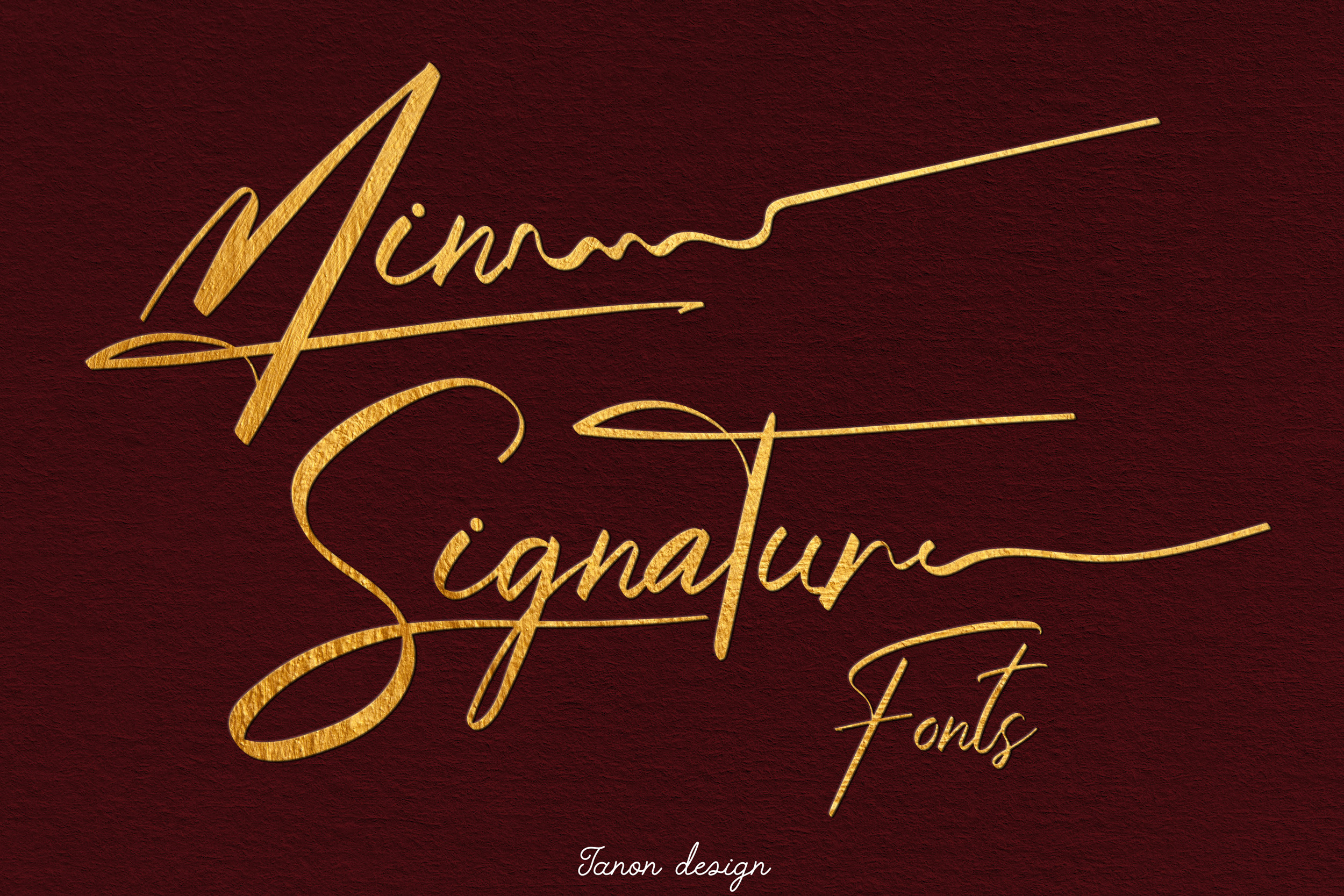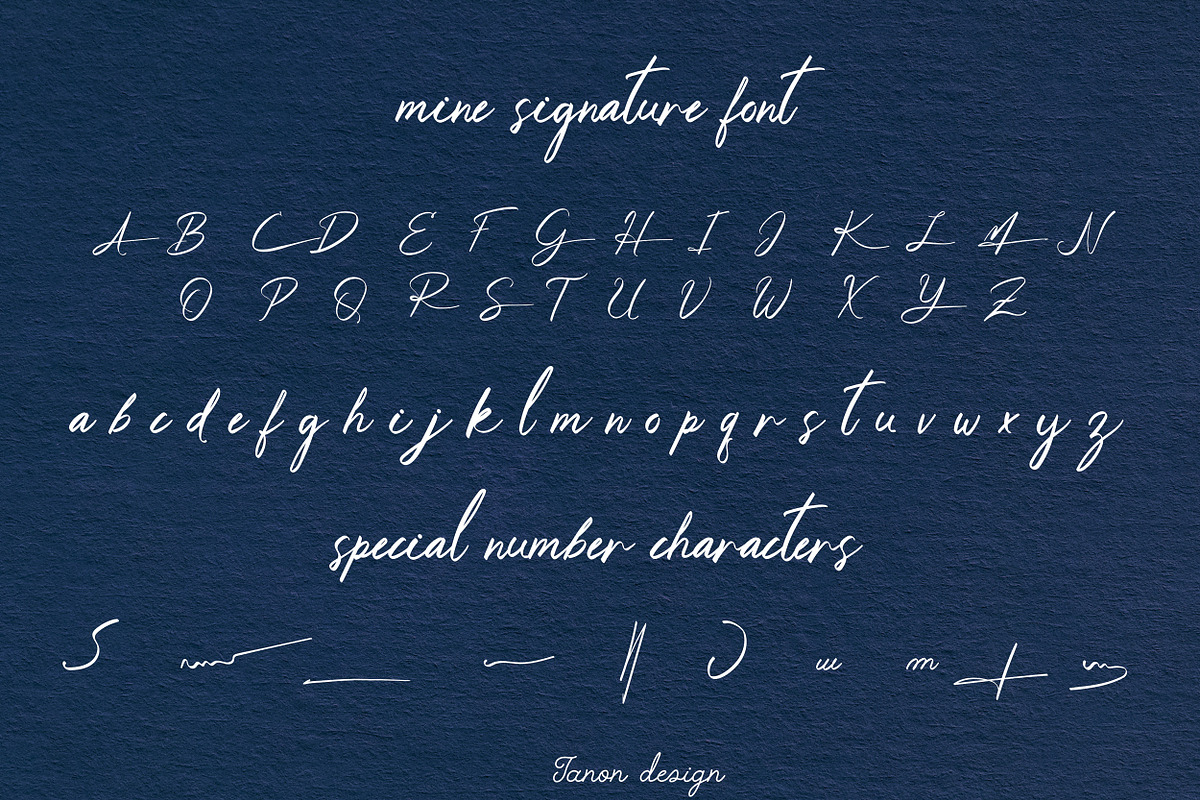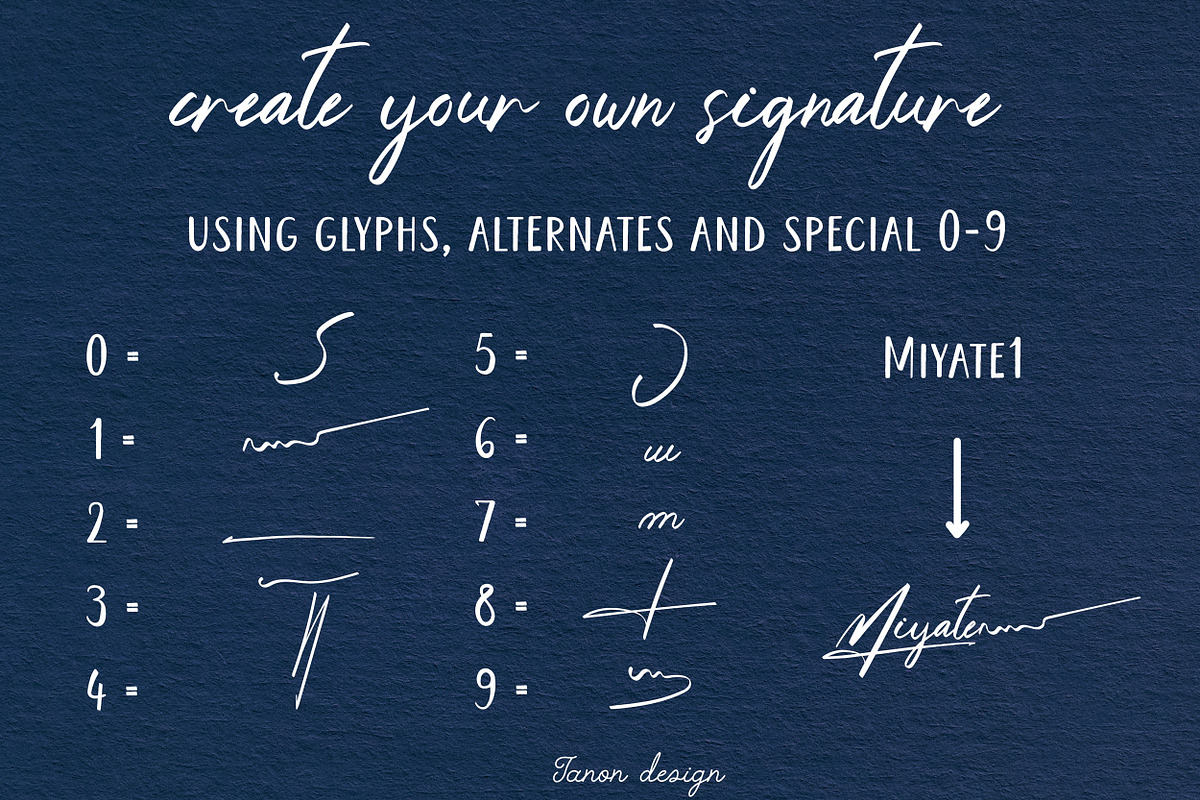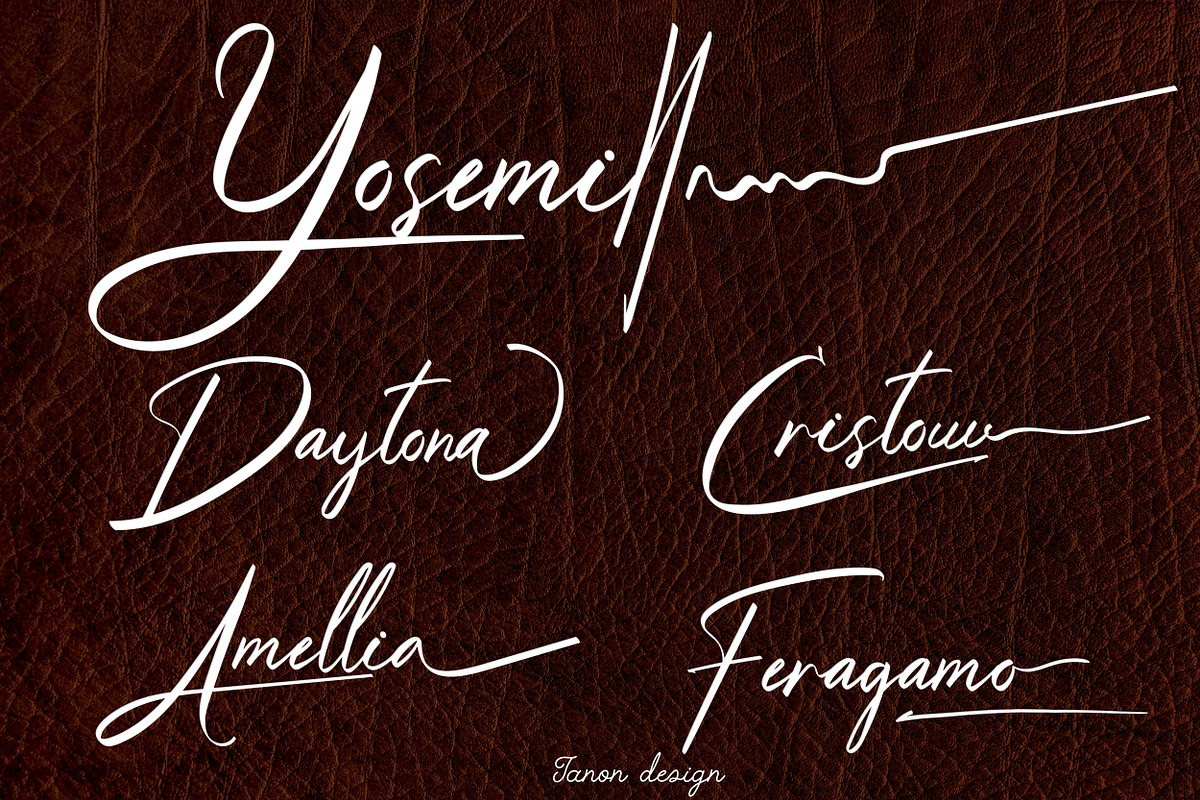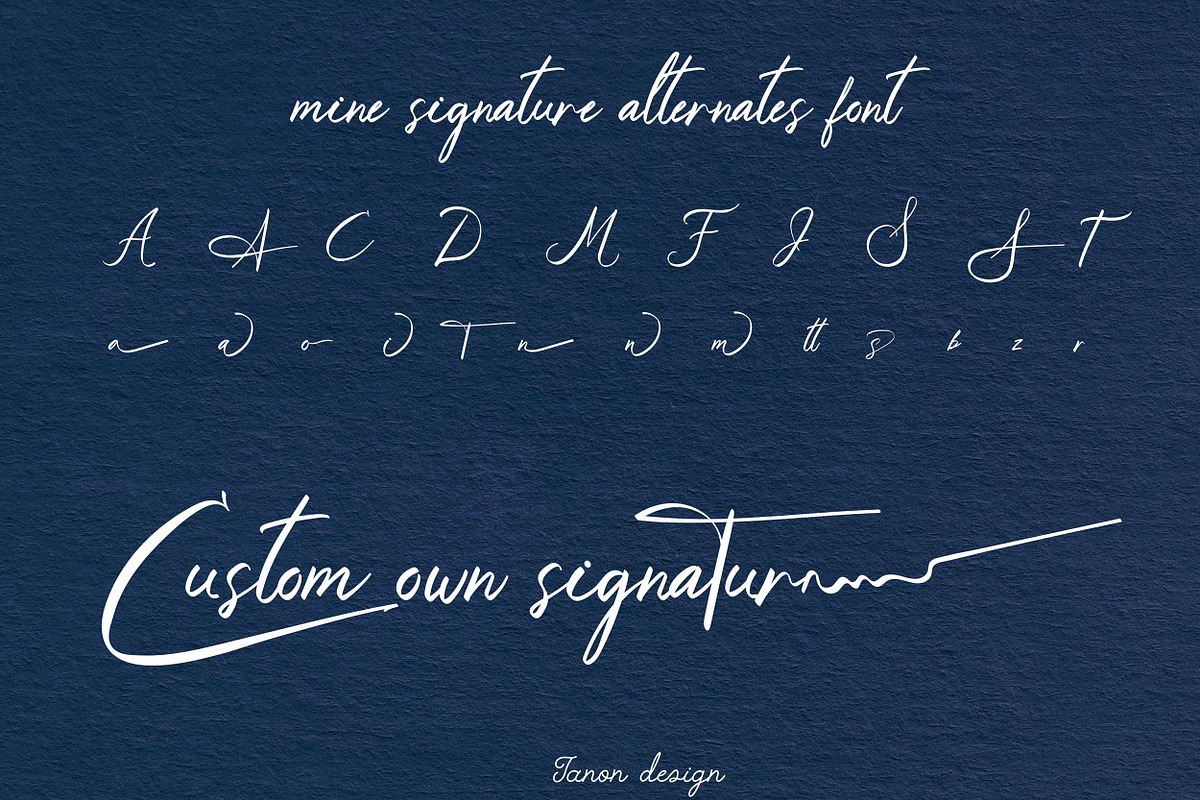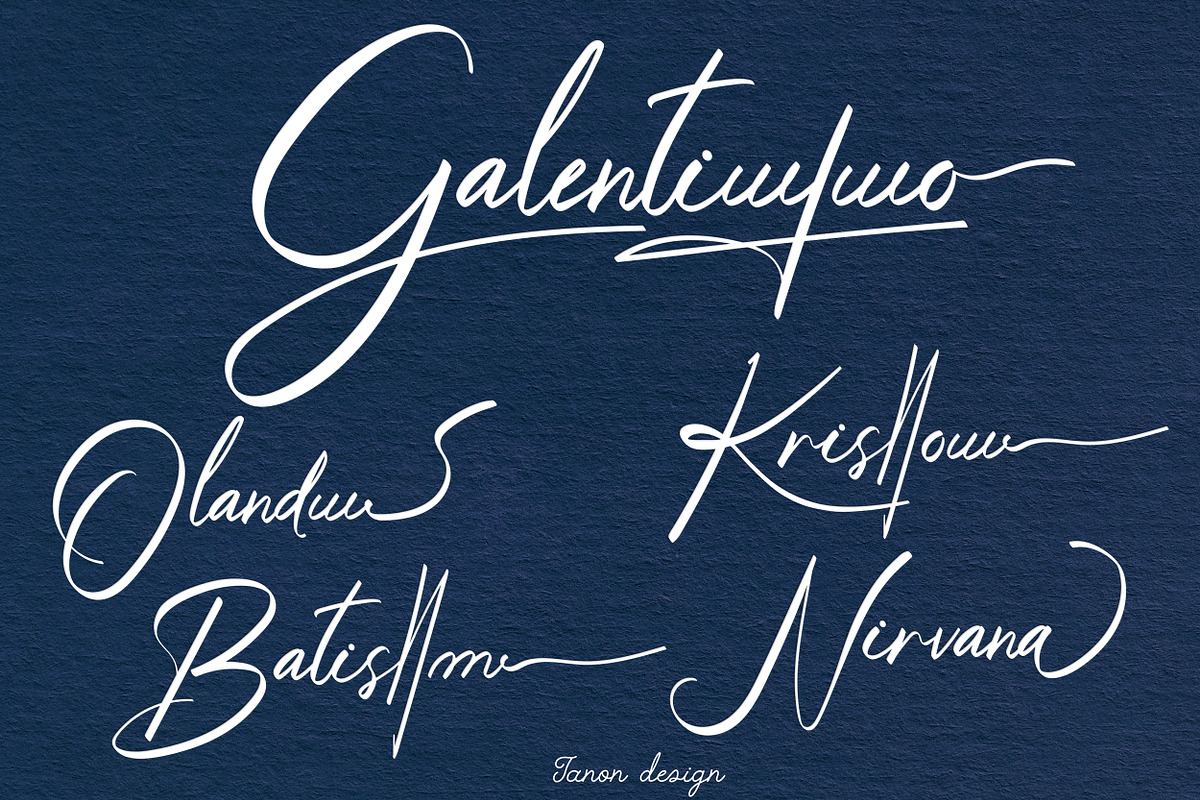
Mine Signature handwritten Font
Mine Signature handwritten Font, Luxury Brand Logo Font. Realistic handwritten font
It will look fantastic on all your project designs, including t-shirt designs, mug designs, digital designs, crafts, cards, and any projects!